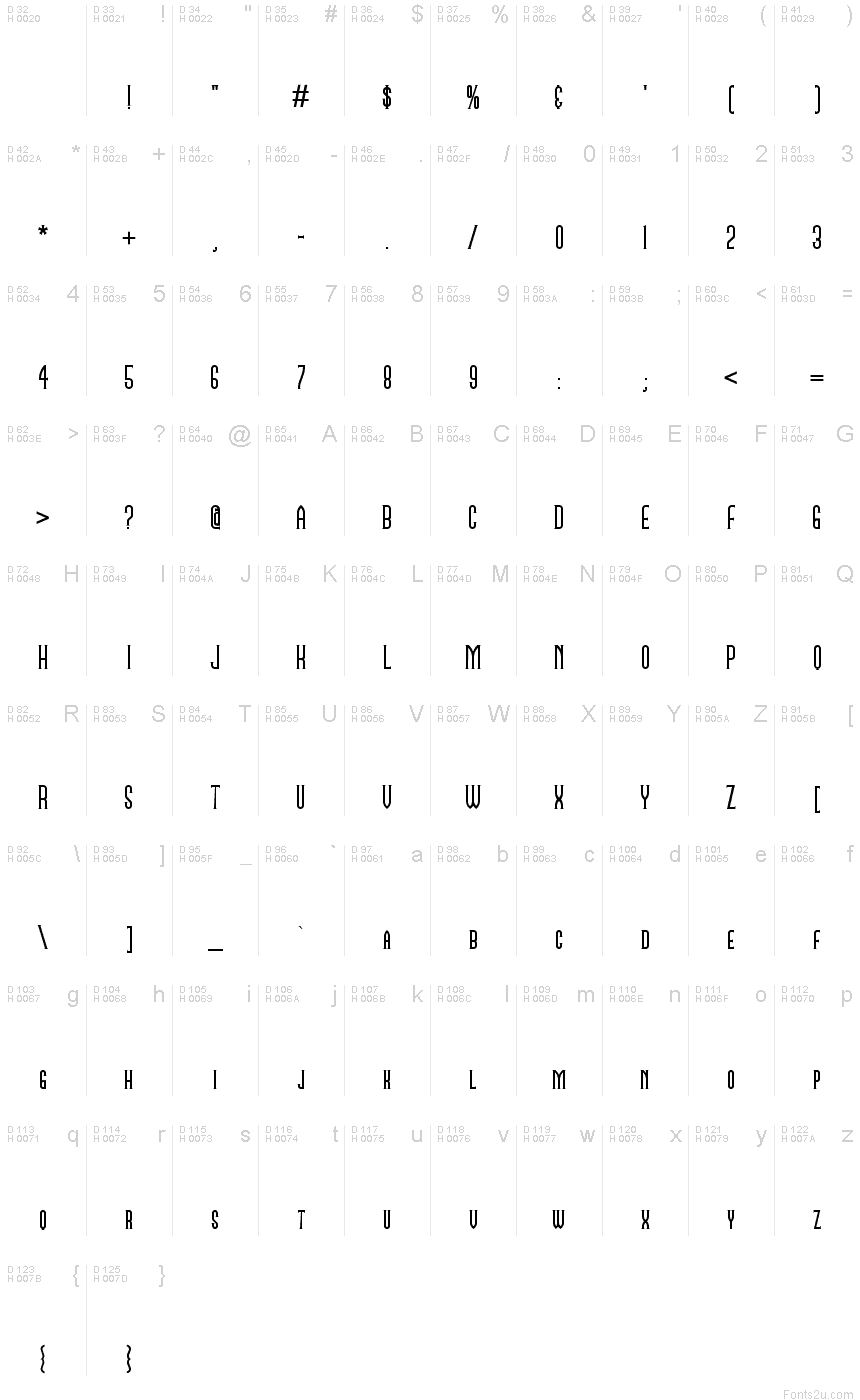
NamesakeNF
Namesake NF font by Nick Curtis is a free retro display font with tall, narrow letterforms and a sharp, elongated rhythm. The strokes taper into slim curves and straight verticals, giving it a formal, poster-like presence that feels drawn with care rather than decorated with extras.
Namesake NF works well for vintage posters, album covers, logo marks, packaging, and short editorial titles where its condensed shape can carry a strong line of text. It also fits invitation accents and signage because the style is distinctive without relying on heavy ornament.